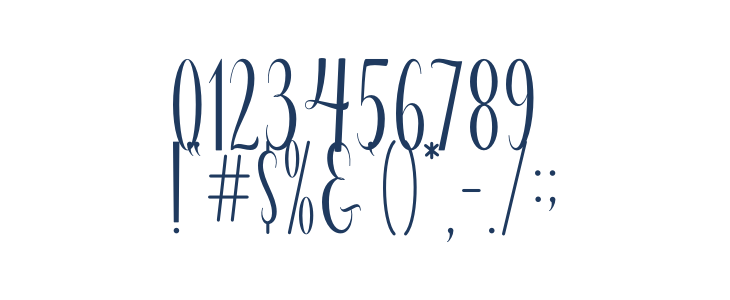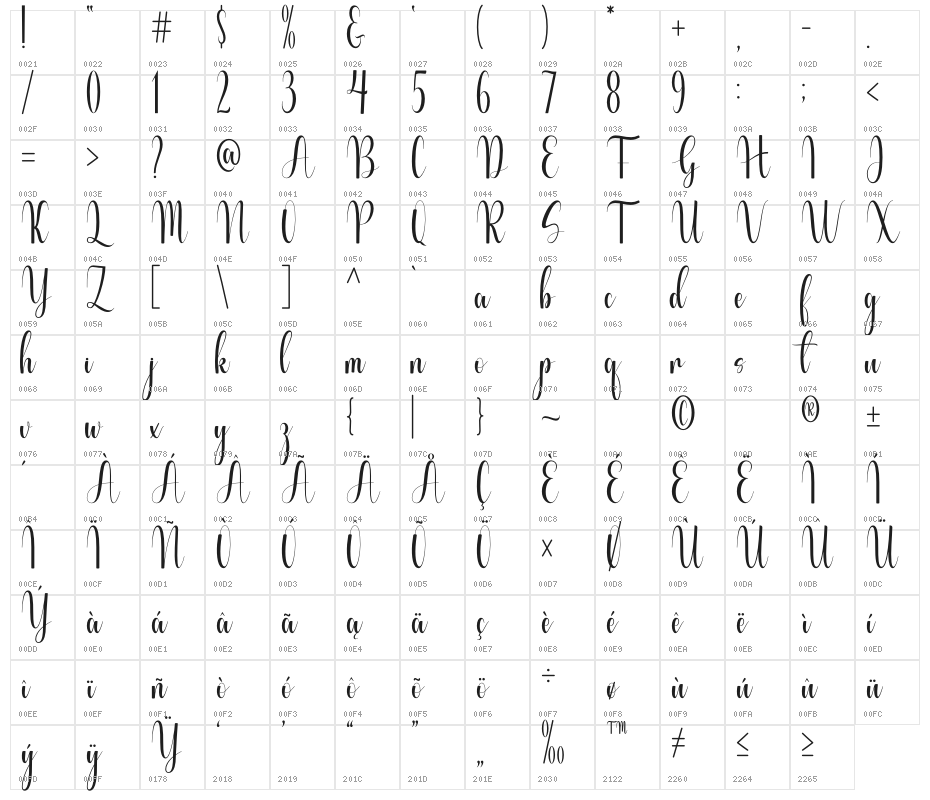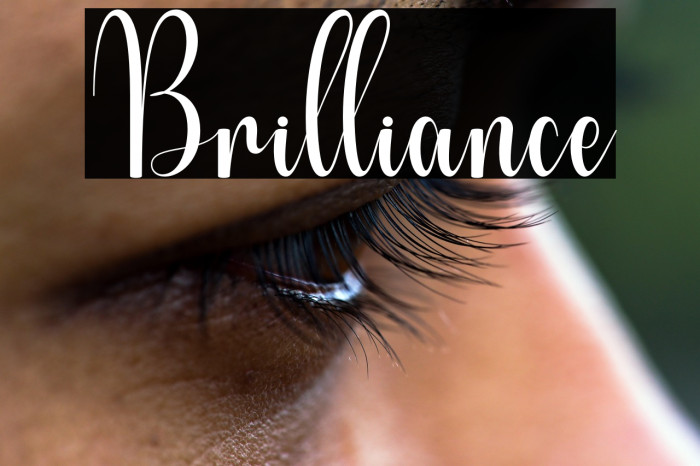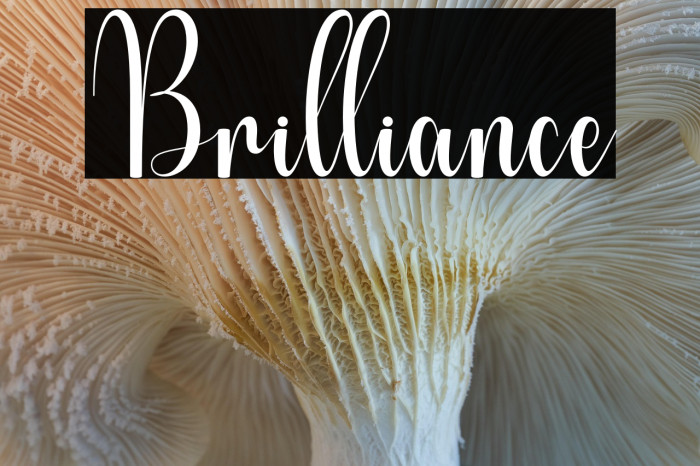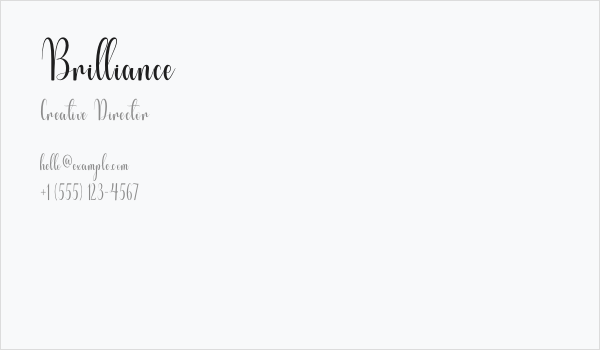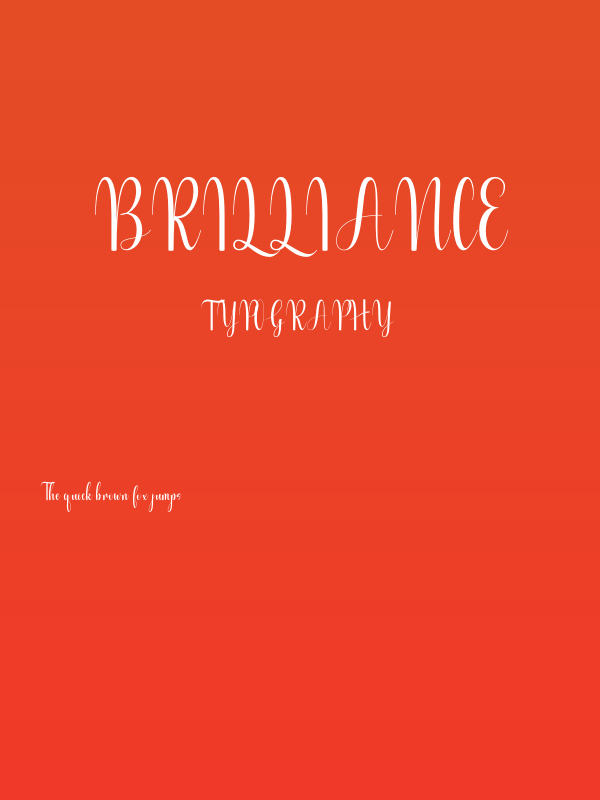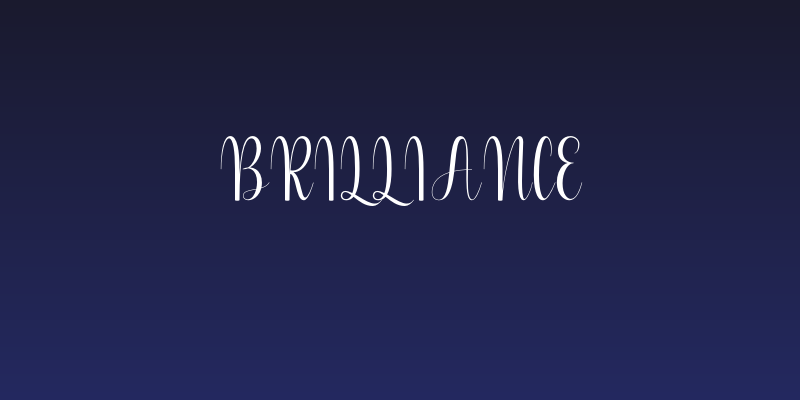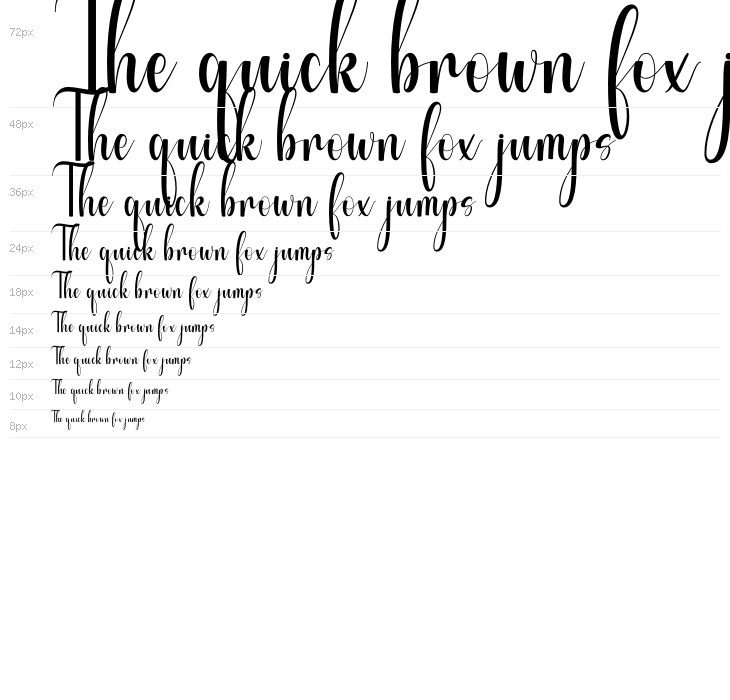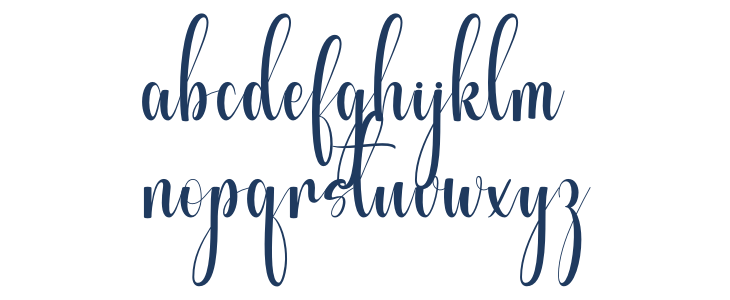
Brilliance Font
Brilliance Description
This font features an elegant and flowing script style, characterized by its smooth, cursive strokes and graceful curves. The uppercase letters are tall and slender, with distinctive loops and swirls that add a touch of sophistication. The lowercase letters maintain a consistent flow, with some characters extending below the baseline, enhancing its fluid appearance. Numbers and special characters are designed to complement the overall aesthetic, maintaining the same elegant and stylish feel. This font is perfect for projects that require a touch of elegance and sophistication, such as wedding invitations, branding, and high-end product packaging.